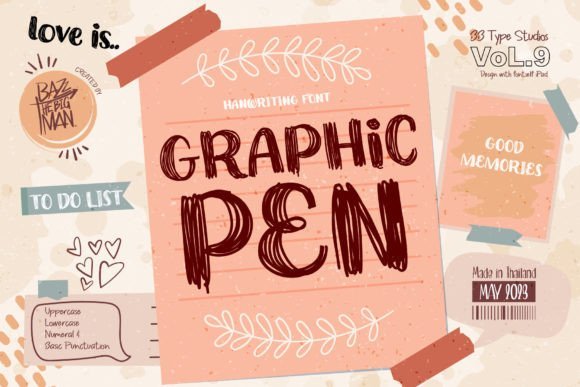
The Perfect Stroke of Creativity: Introducing Graphic Pen Font
You know that moment when you’re brainstorming ideas, and a spark of inspiration hits you? It’s like a burst of creativity that takes over, and you can’t wait to bring it to life. For designers, this feeling is all too familiar. We’ve all been there, staring at a blank canvas, waiting for the perfect font to tie everything together. That’s where Graphic Pen Font comes in – a squiggly line font that adds a touch of whimsy and personality to any creation.
Whether you’re designing natural eco themes, crafting headlines, or creating stickers and greeting cards, Graphic Pen Font is the perfect tool to elevate your work. Its versatility and charm make it a valuable asset for designers, allowing them to add a unique touch to their projects. With Graphic Pen Font, the possibilities are endless, and the results are sure to impress.
Key Features of Graphic Pen Font
- Font Family: Graphic Pen Font offers a range of unique, hand-drawn font styles, each with its own characteristics and flair.
- Unique Characteristics: Each font style features intricate details, subtle texture, and a personal touch, making it perfect for designers seeking a unique aesthetic.
Review of Graphic Pen Font
Overall, I’m quite impressed with the Graphic Pen Font. It has a unique and modern look that can add a touch of personality to your designs.
- ✨ Unique and expressive strokes that give it a hand-drawn feel
- ✨ Works well in titles and headings, adding a pop of personality
- ✨ Can be used in both digital and print designs
- ⚠️ May be difficult to read in small font sizes, especially in text-heavy designs
- ⚠️ Can be overwhelming if used too extensively, so use it sparingly
- ⚠️ Limited character set and language support
Overall, I’d say the Graphic Pen Font is a great addition to any designer’s toolkit. It’s perfect for adding a touch of whimsy and personality to your designs, but be mindful of its limitations and use it judiciously.
The Graphic Pen Font is ideal for:
- Creating hand-drawn or handwritten effects.
- Adding a personal touch to designs.
- Creating artistic or illustrative content.
Remember to experiment with different font sizes, colors, and styles to get the most out of the Graphic Pen Font.
Alternative Handwritten Fonts for Designers
Great Vibes is a modern, elegant, and highly legible handwritten font. It’s perfect for use in logos, headings, and quotes. When to use: For designs that require a touch of sophistication and elegance.
Compared to Graphic Pen Font, Great Vibes is more refined and polished, with a more consistent line width and a softer feel.
Carolyna Pro is a highly customizable, modern handwritten font with a touch of whimsy. It’s ideal for use in invitations, quotes, and creative typography. When to use: For designs that require a unique and playful feel.
Compared to Graphic Pen Font, Carolyna Pro has a more dynamic and expressive feel, with a wider range of letterforms and a more varied line width.
Alex Brush is a modern, elegant, and highly legible handwritten font. It’s perfect for use in logos, headings, and quotes. When to use: For designs that require a touch of sophistication and elegance.
Compared to Graphic Pen Font, Alex Brush is more minimalist and subtle, with a softer feel and a more delicate line width.
Playball
Playball is a playful and energetic handwritten font with a touch of nostalgia. It’s ideal for use in creative typography, quotes, and invitations. When to use: For designs that require a fun and playful feel.
Compared to Graphic Pen Font, Playball has a more dynamic and expressive feel, with a wider range of letterforms and a more varied line width.